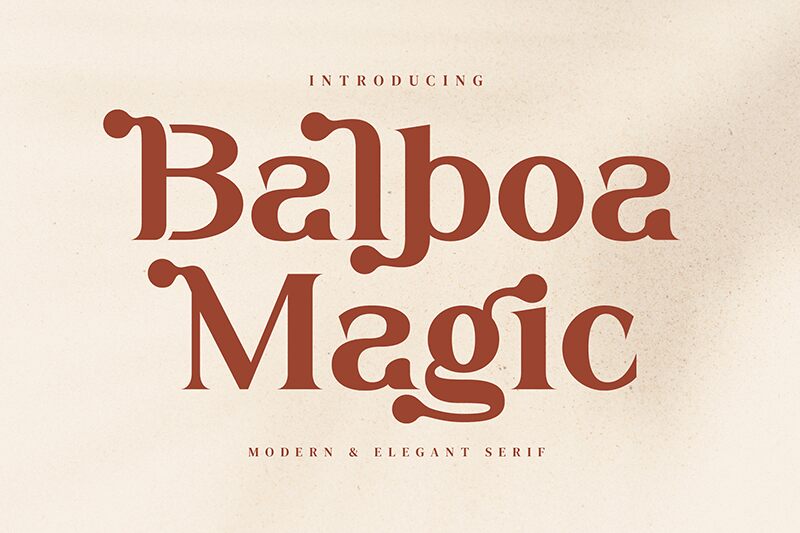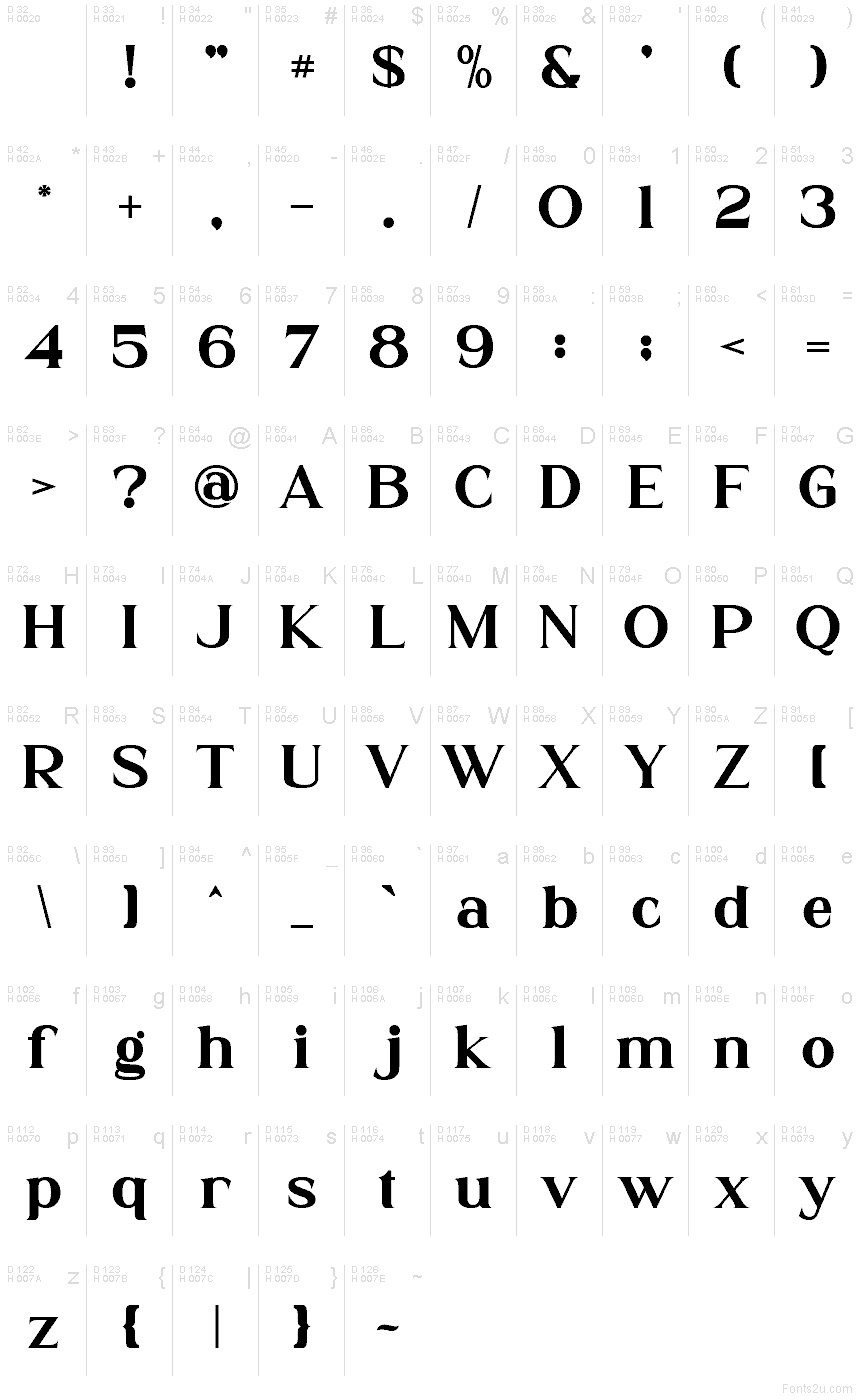
Balboa Magic font by Aqeel_Art is a free serif typeface with a lush, inky bite. Broad stems meet rounded, teardrop-like details, giving each word a sculpted weight that feels both classic and a little rebellious. The spacing runs tight and confident, so headlines lock up with a satisfying rhythm while the curves keep the texture warm rather than stiff.
Using Balboa Magic, your titles punch through on book covers, magazine mastheads, posters, boutique branding, coffee packaging, and event invitations. This free font thrives at larger sizes where its bold shapes can breathe, then holds together nicely in subheads. Pair it with a simple, neutral sans for body copy, and let Balboa Magic handle the statement lines.
Balboa Magic